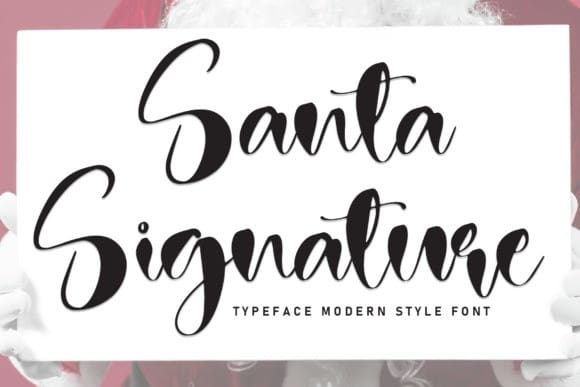
Santa Signature Font
Santa Signature Font, a charming handwritten font that brings the warmth of the holiday season to your projects. Emulating the whimsical strokes of Santa’s pen, this font adds a personal touch to your designs, making it perfect for greeting cards, festive invitations, or any Christmas-themed creations. Santa Signature embodies the joy and magic of the season, delivering a handwritten feel that spreads holiday cheer in every letter.